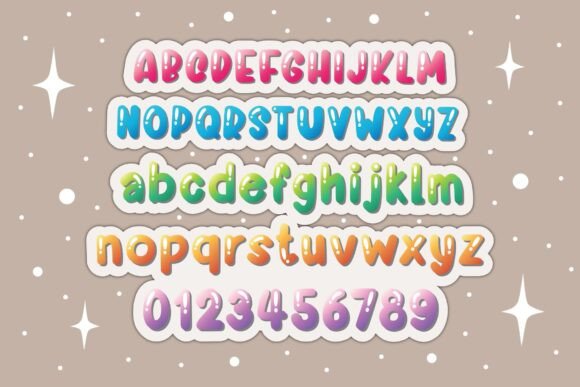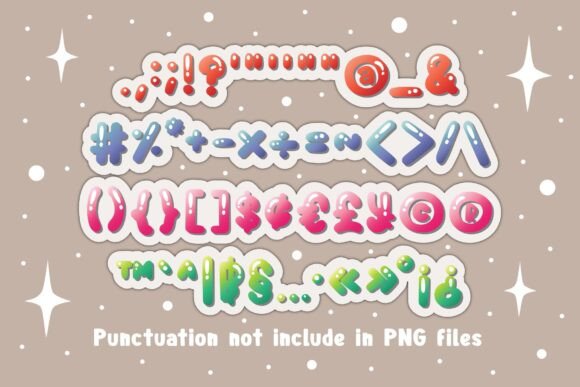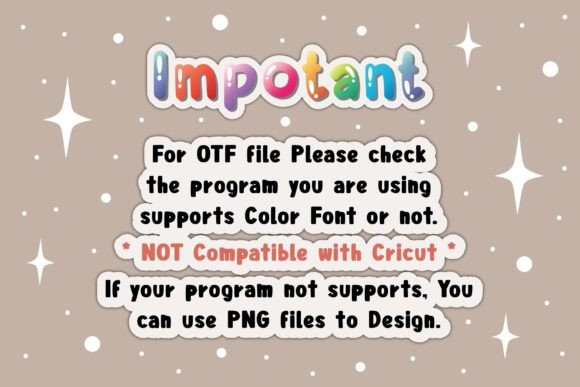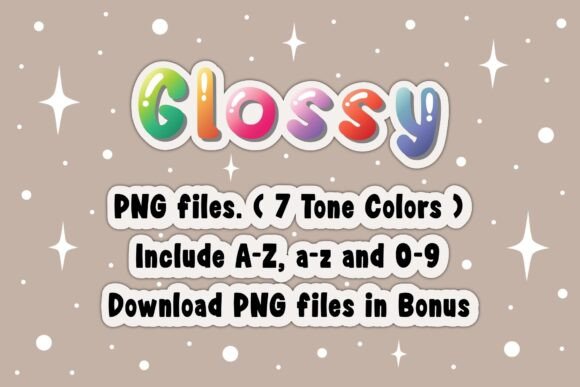
Introduction to Glossy Amber Font
Glossy Amber is a Sweet Color Font in 7 Colors Tone with Gray Shadow.
This font is the perfect fit for all of your t-shirt, social media, crafty DIY projects, and much more The black version of this font is compatible with Cricut Design Space and other cutting machines.